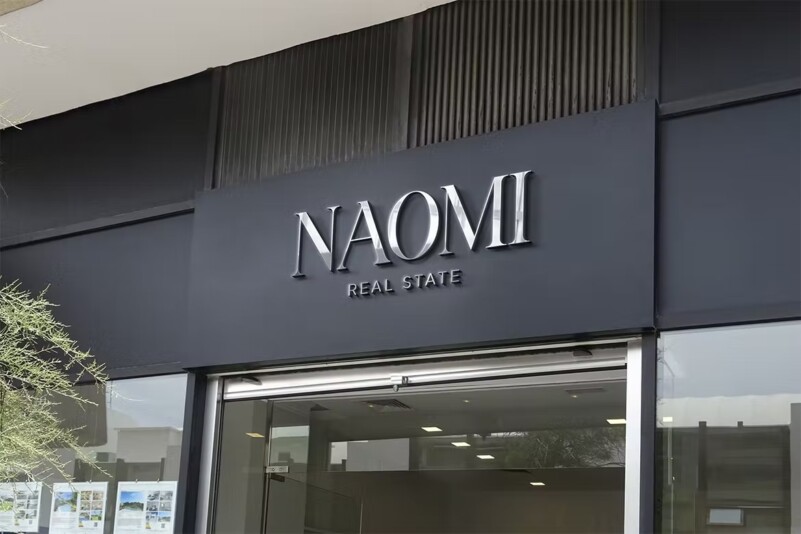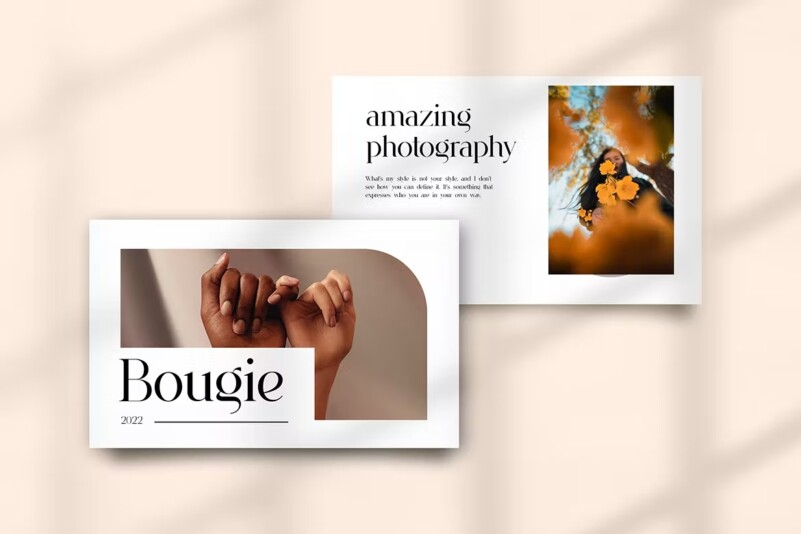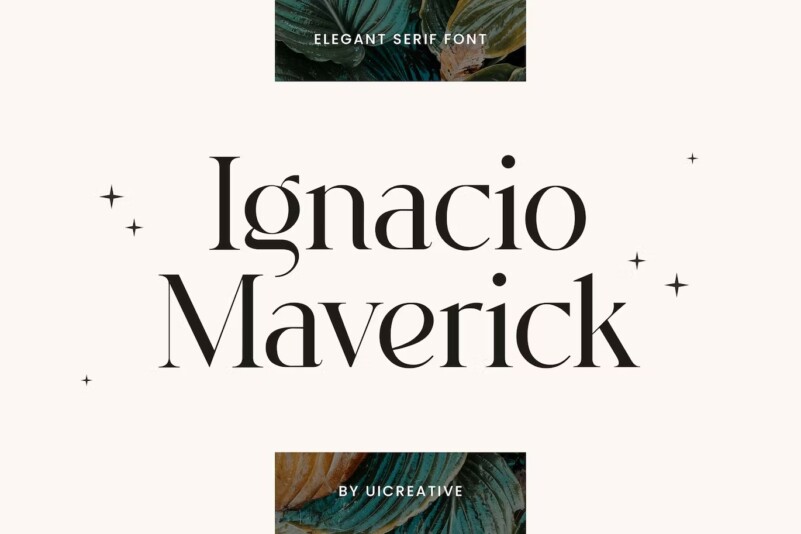
Ignacio Maverick – Elegant Serif Font
We present to you our new product which is called Ignacio Maverick Elegant Serif Font . A modern Serif font that gives an impression of beauty, class, elegance and modernity. This font is perfect for a wide variety of projects, such as signature, stationery, logo, weddings, typographic quotes, magazine or book covers, website headers, apparel, branding, packaging design, etc. Additionally, fashion-related branding or editorial design exhibits both masculine and feminine qualities.